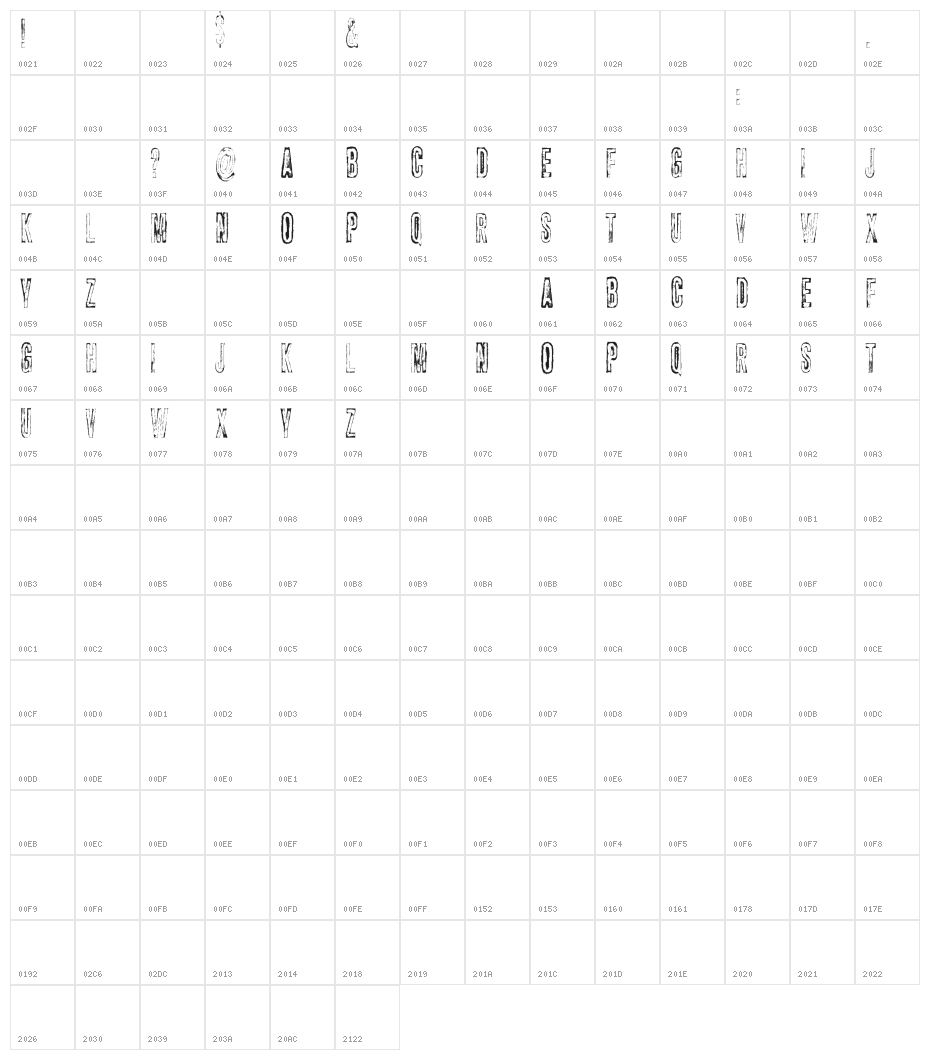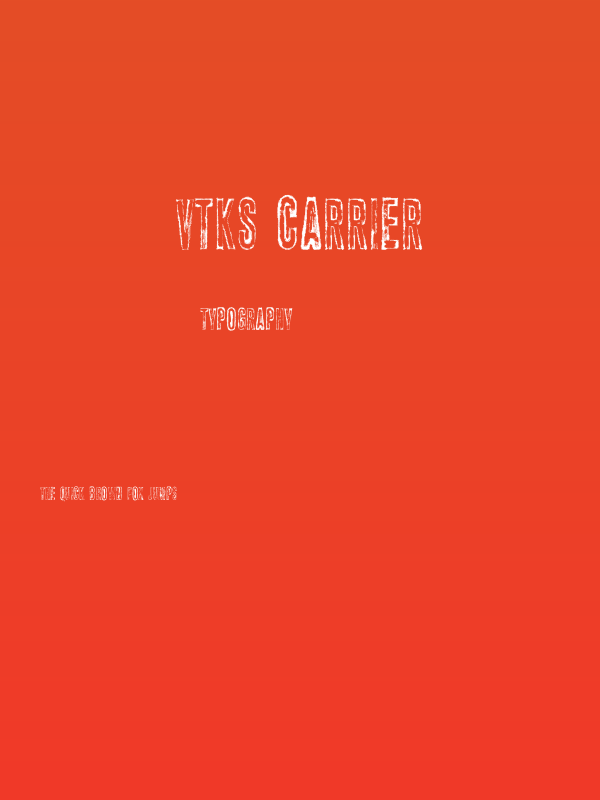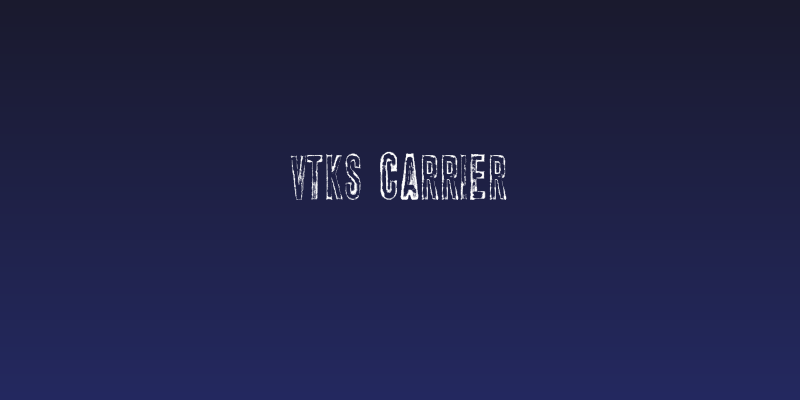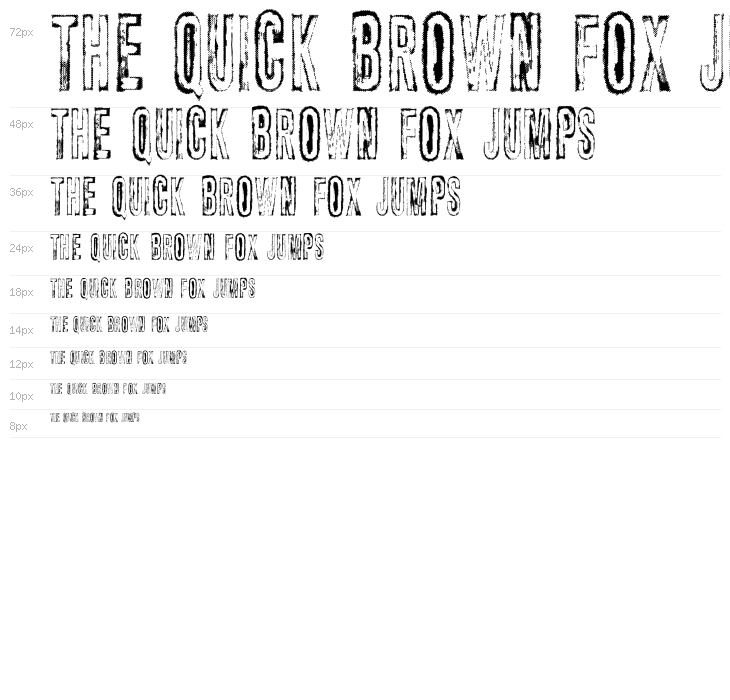
vtks carrier Font
vtks carrier Description
This font features a bold, distressed style with a textured appearance that gives it a rugged, vintage feel. The uppercase letters are prominent and eye-catching, making it suitable for impactful designs. The characters have a slightly uneven, worn-out look, adding to the overall aesthetic. The font maintains a consistent width across all characters, ensuring uniformity in text presentation. Its unique style is perfect for projects that require a strong, retro vibe, such as posters, album covers, or branding materials that aim to convey a sense of nostalgia or edginess.
| Proposed Projects | Ideal for posters, album covers, branding materials, and any design needing a vintage or rugged look. |